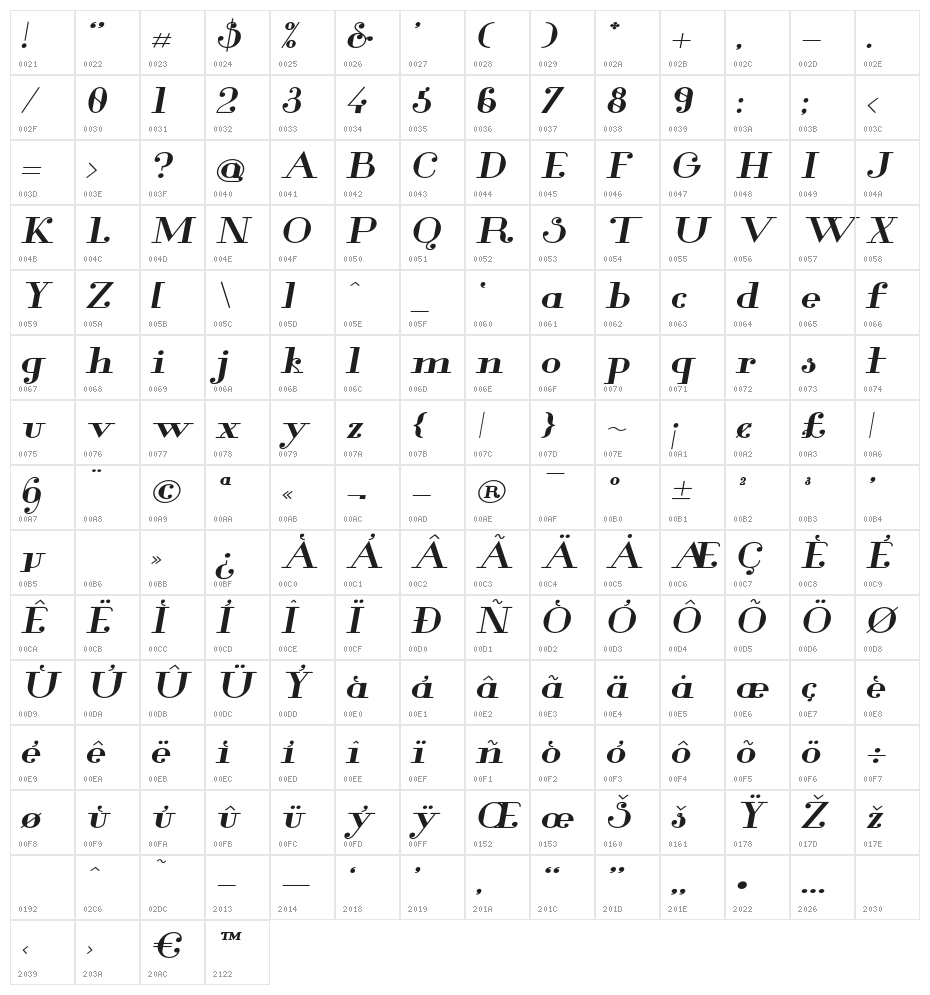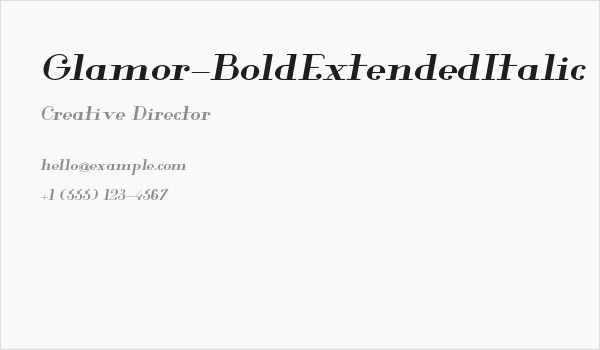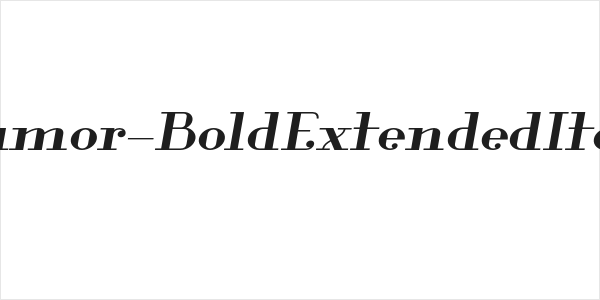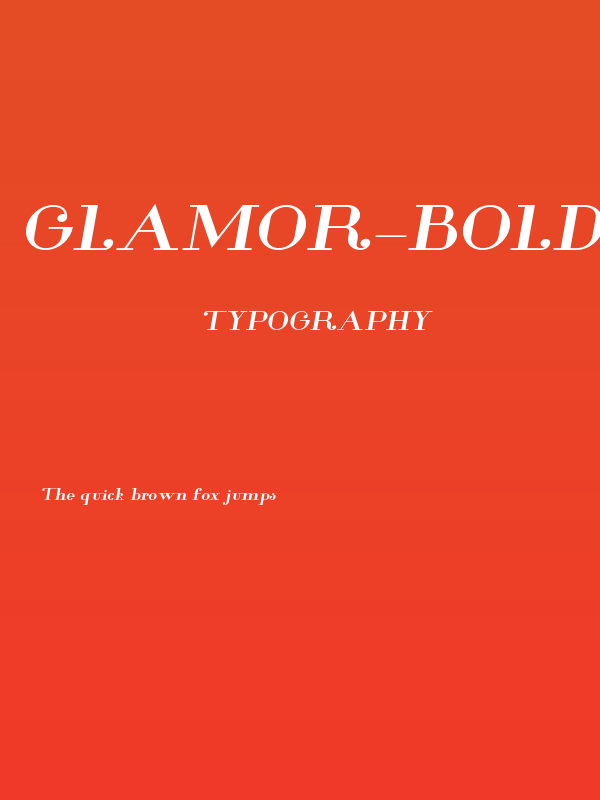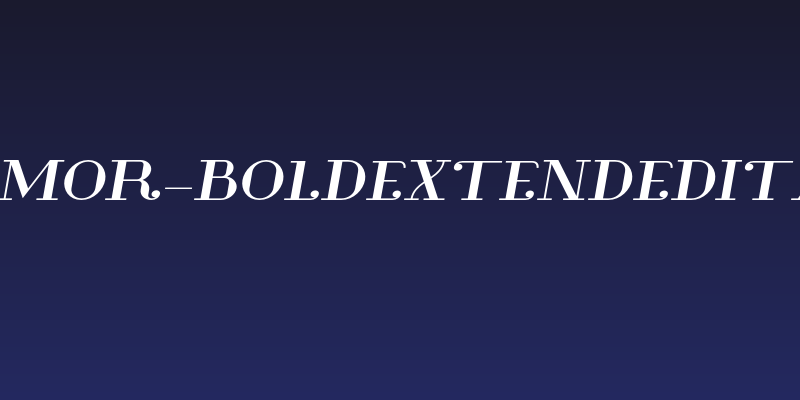
Glamor-BoldExtendedItalic Font
Glamor-BoldExtendedItalic Description
This font features a bold and extended italic style, characterized by its elegant and sophisticated appearance. The letters are slanted, giving a dynamic and forward-moving impression. The strokes are thick and consistent, providing a strong visual impact. The serifs are prominent and slightly curved, adding a touch of classic elegance. The overall design is modern yet retains a timeless quality, making it versatile for various applications. The numbers and special characters maintain the same bold and italicized style, ensuring consistency across all elements.
| Proposed Projects | Ideal for luxury branding, fashion magazines, high-end product packaging, and elegant invitations. |